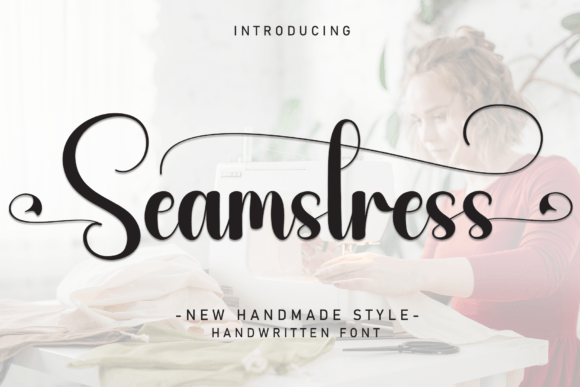
Behold the Seamstress font, an elegant script family that weaves a tapestry of beauty and harmony. Its name, reminiscent of a skilled artisan, hints at the intricate artistry embedded within each meticulously crafted character. This script font seamlessly captures the essence of a handwritten note, evoking a sense of warmth and familiarity. With its delicate curves and flowing strokes, the Seamstress font effortlessly adds a touch of grace and sophistication to any design.
Immerse yourself in the world of romance and whimsy as you explore the endless possibilities of the Seamstress font. Whether you're creating heartfelt wedding invitations, charming greeting cards, or captivating logos, this font will lend its enchanting presence, leaving an everlasting impression. Its versatility knows no bounds, making it the perfect choice for a variety of projects, from enchanting posters to captivating social media graphics. Unleash your creativity and let the Seamstress font guide you towards masterpieces that resonate with your audience.
Unlike other fonts that fade into the background, Seamstress demands attention with its captivating presence. Its bold personality shines through, transforming ordinary words into captivating works of art. Each letter is a testament to the artistry of its creator, William Jhardy, whose passion for typography is evident in every curve and flourish. As you type using this font, you'll feel a sense of connection with the written word, as if each letter is a brushstroke painting a vivid story.
Imagine a font that not only enhances your designs but also captivates your audience, drawing them into a world of enchantment. The Seamstress font possesses this magical ability, creating an immersive experience that transports users to a realm of imagination and awe. Its carefully crafted characters dance across the screen, capturing the essence of a story waiting to be told. With Seamstress as your font of choice, your designs will captivate and enchant, leaving an indelible mark on the hearts and minds of your audience.
The Seamstress font is more than just a collection of letters; it's an invitation to step into a world of elegance, charm, and inspiration. As you immerse yourself in its beauty, you'll discover a font that not only elevates your designs but also sparks your creativity. Let Seamstress be your muse, guiding you towards masterpieces that resonate with your audience and leave a lasting impression. Embrace the power of this remarkable font and watch as your designs transform into captivating works of art.